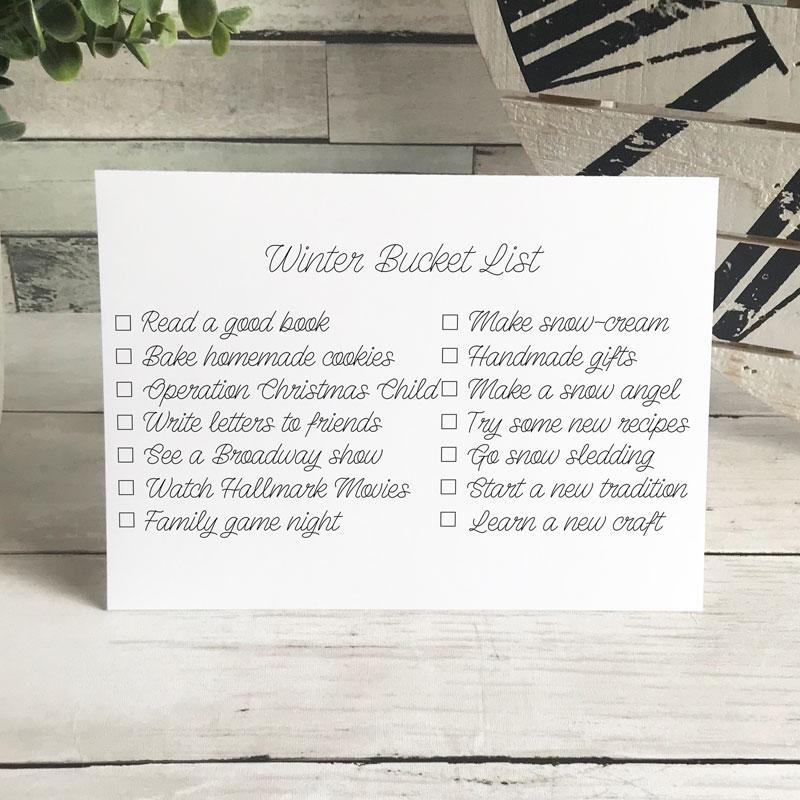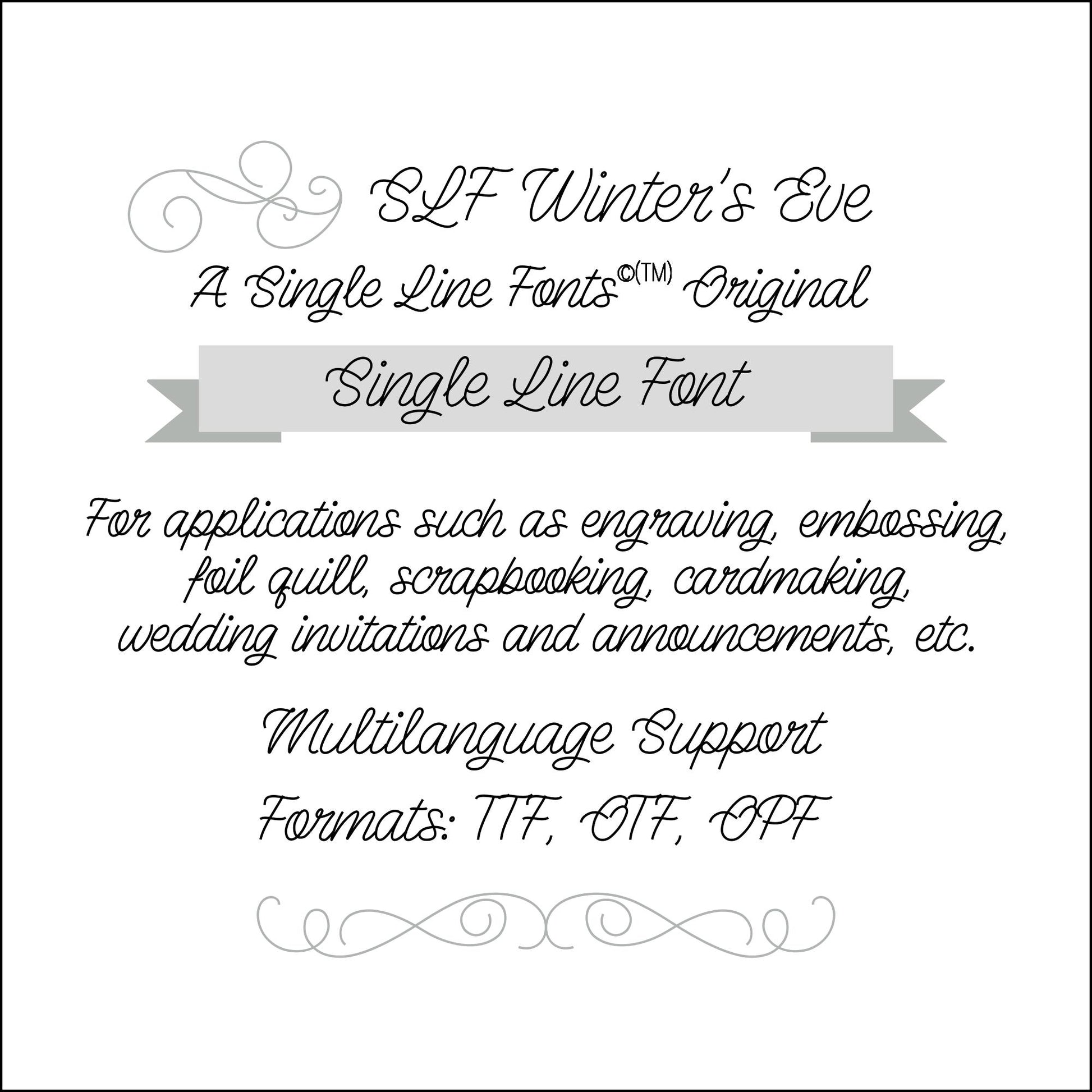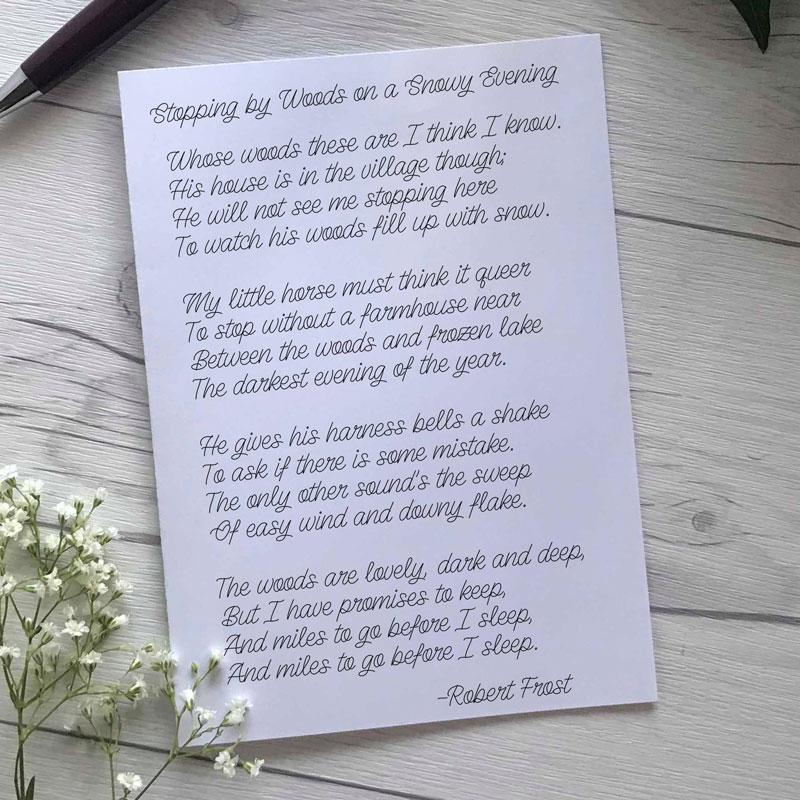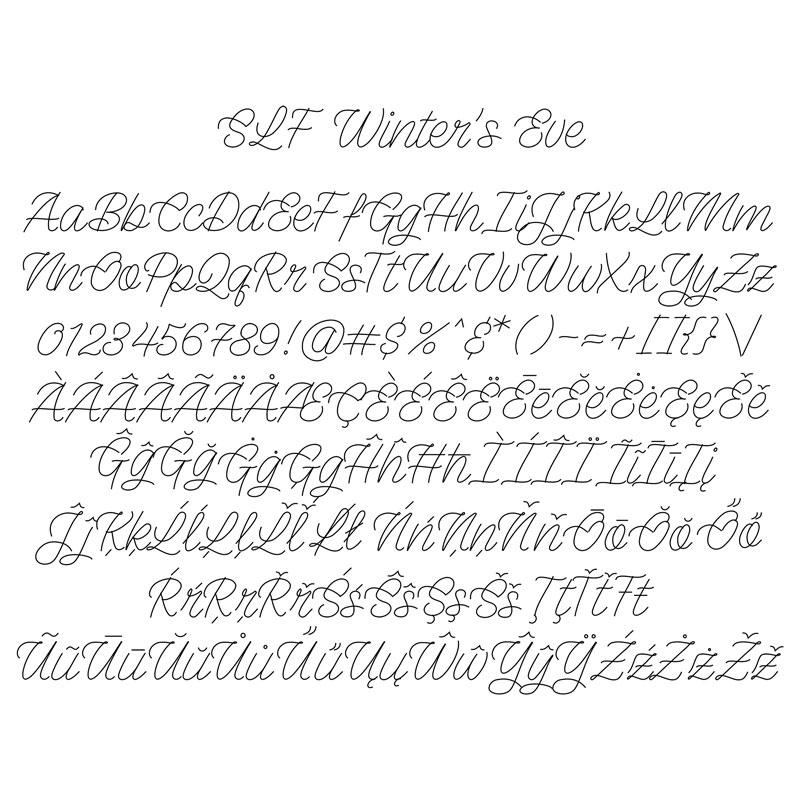
SLF Winter’s Eve – Angled Single Line Print Font for Foil Quill & Engraving
SLF Winter’s Eve is a single line print-style font set at a stylish angle, with a twist of personality. It’s perfect for Foil Quill projects, card making, scrapbooking, and engraving when you want lettering that stands out. This font includes an extended character set for multiple languages (see the character set image).
• Foil Quill lettering and pen projects
• Cards, journaling, and winter-themed designs